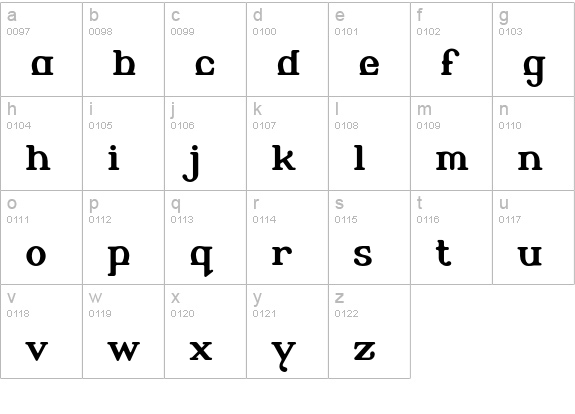
Alembic-BoldOne font is a bold and dynamic typeface that exudes confidence and modernity. Its sleek lines and strong presence make it perfect for headlines, titles, and branding projects that require a bold statement. The font's striking design ensures that your message will stand out and make a lasting impression on your audience. What's even better is that Alembic-BoldOne font is completely free to download at FontsMarket.com. This means that you can easily access this high-quality, professionally designed font without any cost. Whether you're a designer, marketer, or content creator looking to elevate your projects, Alembic-BoldOne font is a fantastic choice that won't break the bank. Don't miss out on the opportunity to enhance your designs with this stunning and versatile font that is just a click away.